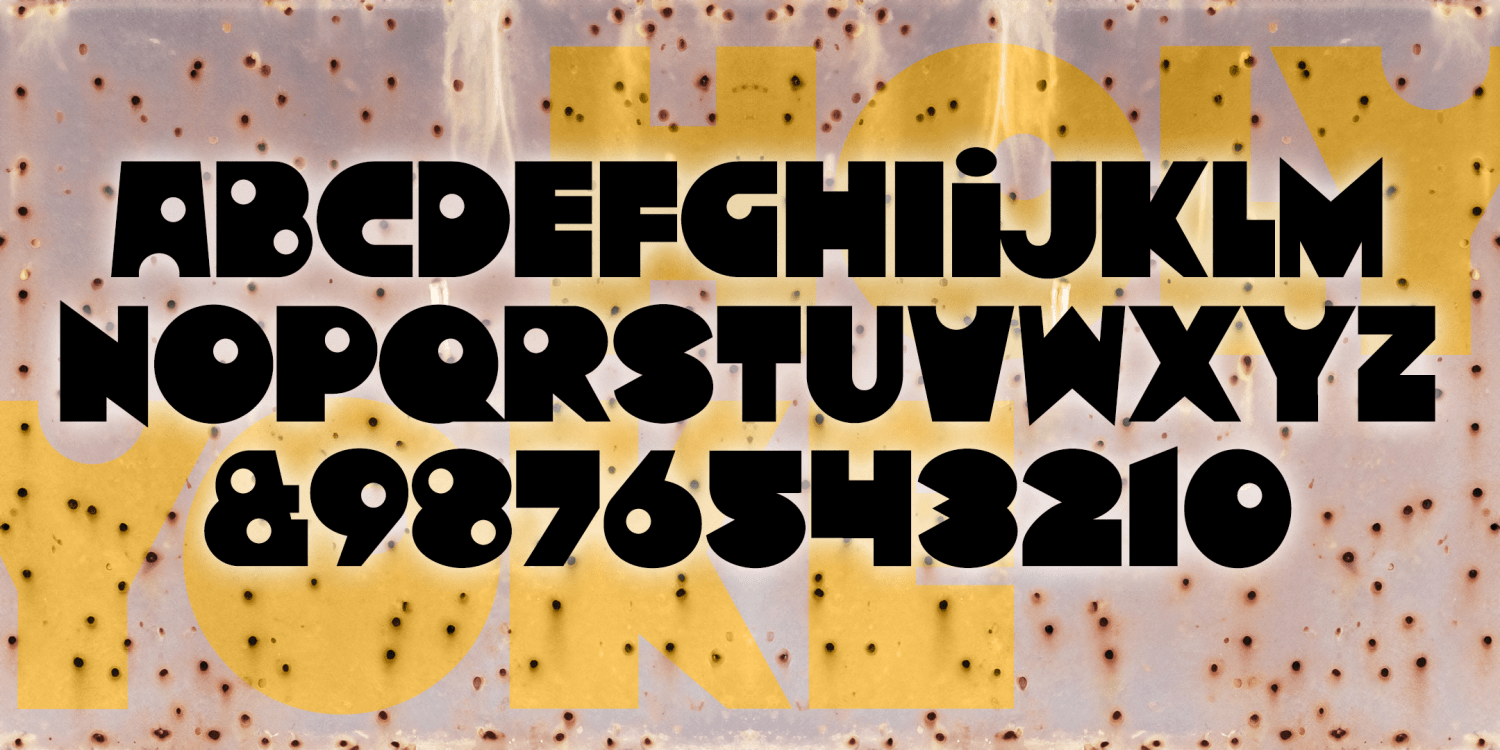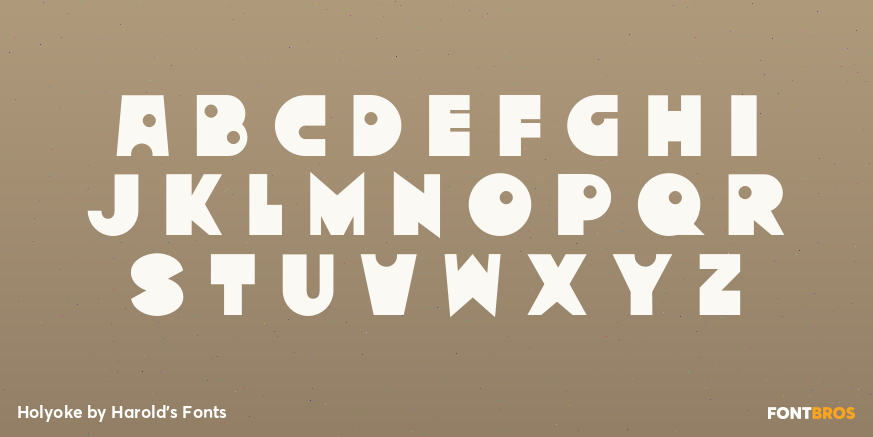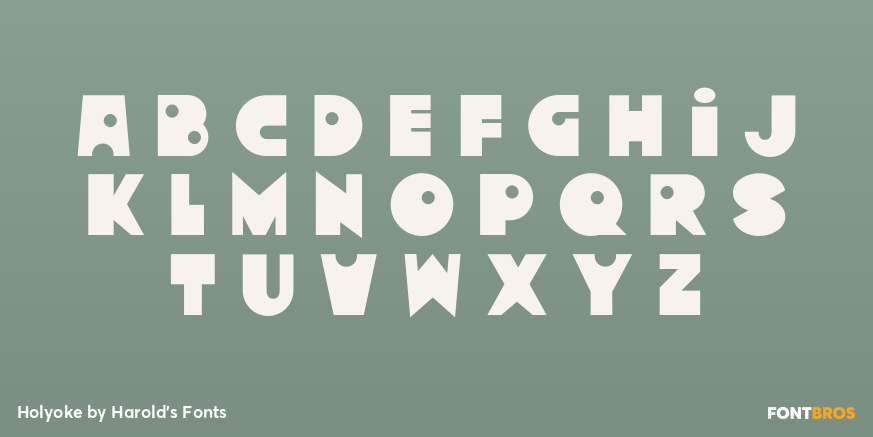
Holyoke
Font Family by Harold's Fonts
HOLYOKE is a big bold font filled with pop art fun… and holes! The round counters give your text a playful bounce. HOLYOKE was inspired by the hand-lettered titles of “The Ambushers” from 1967, part of the Matt Helm spy spoof series starring Dean Martin.